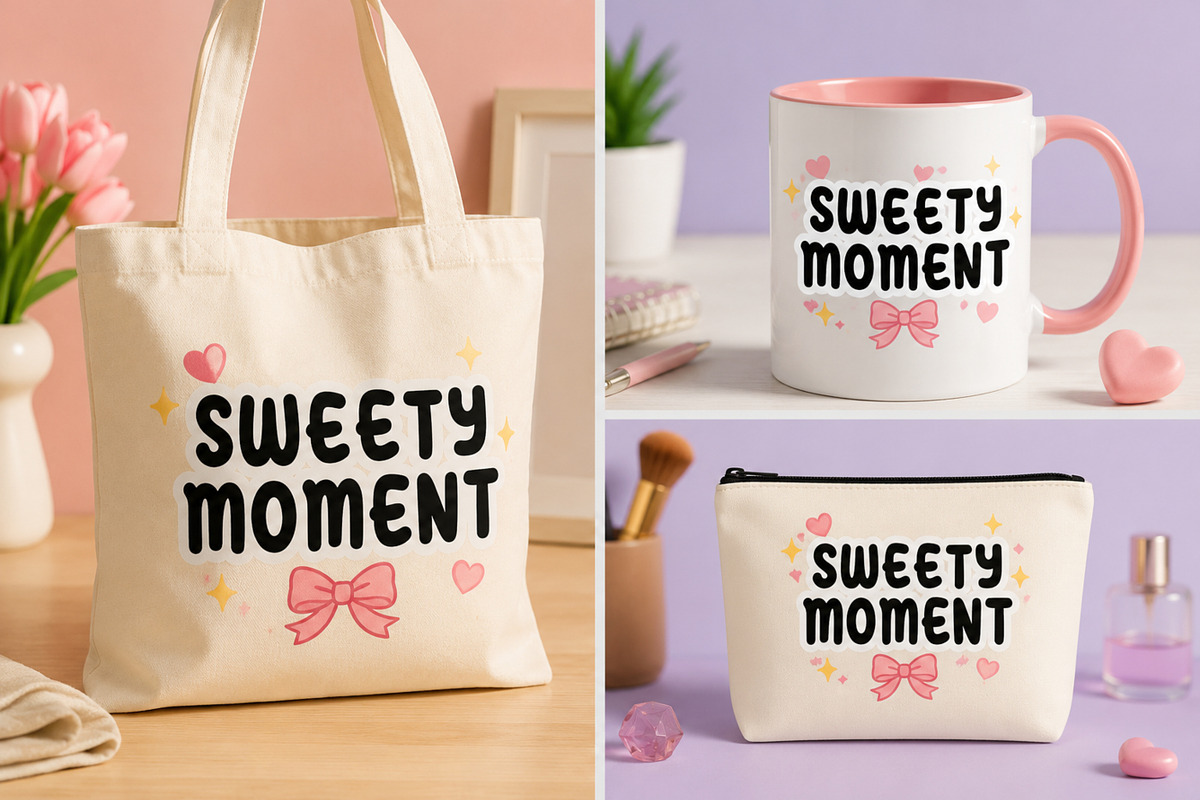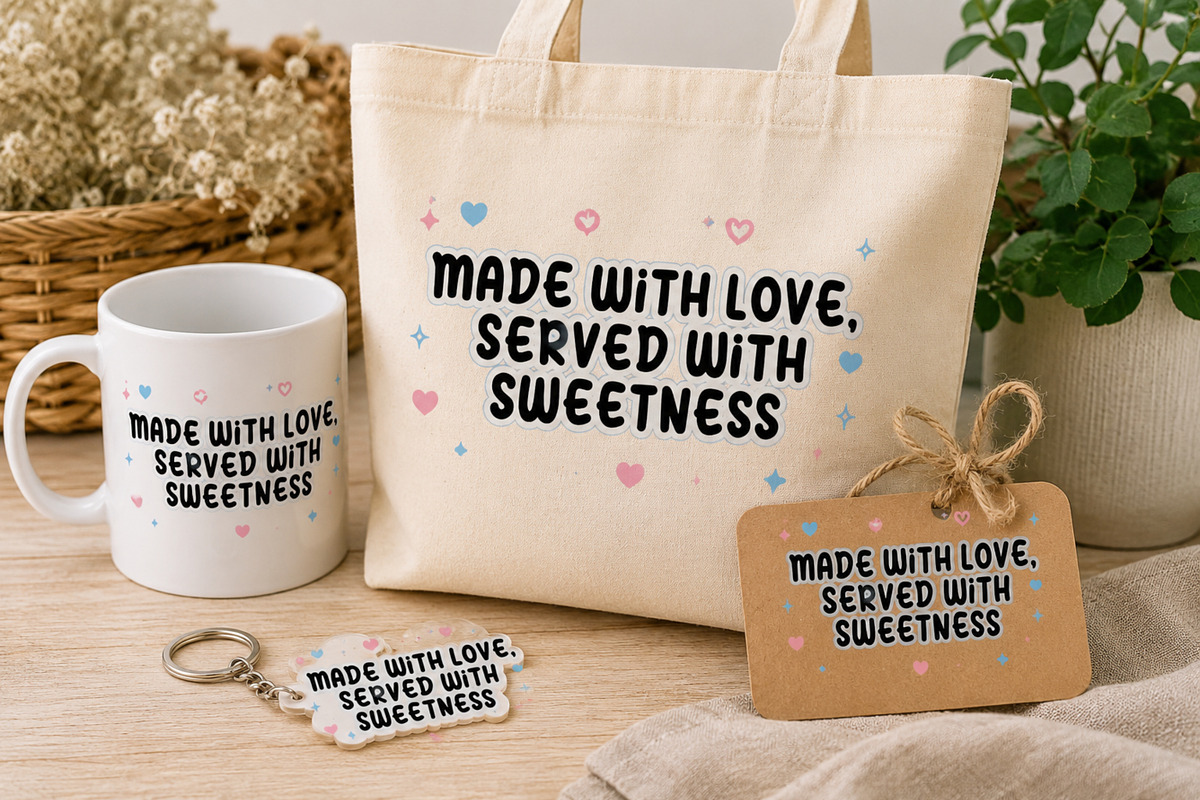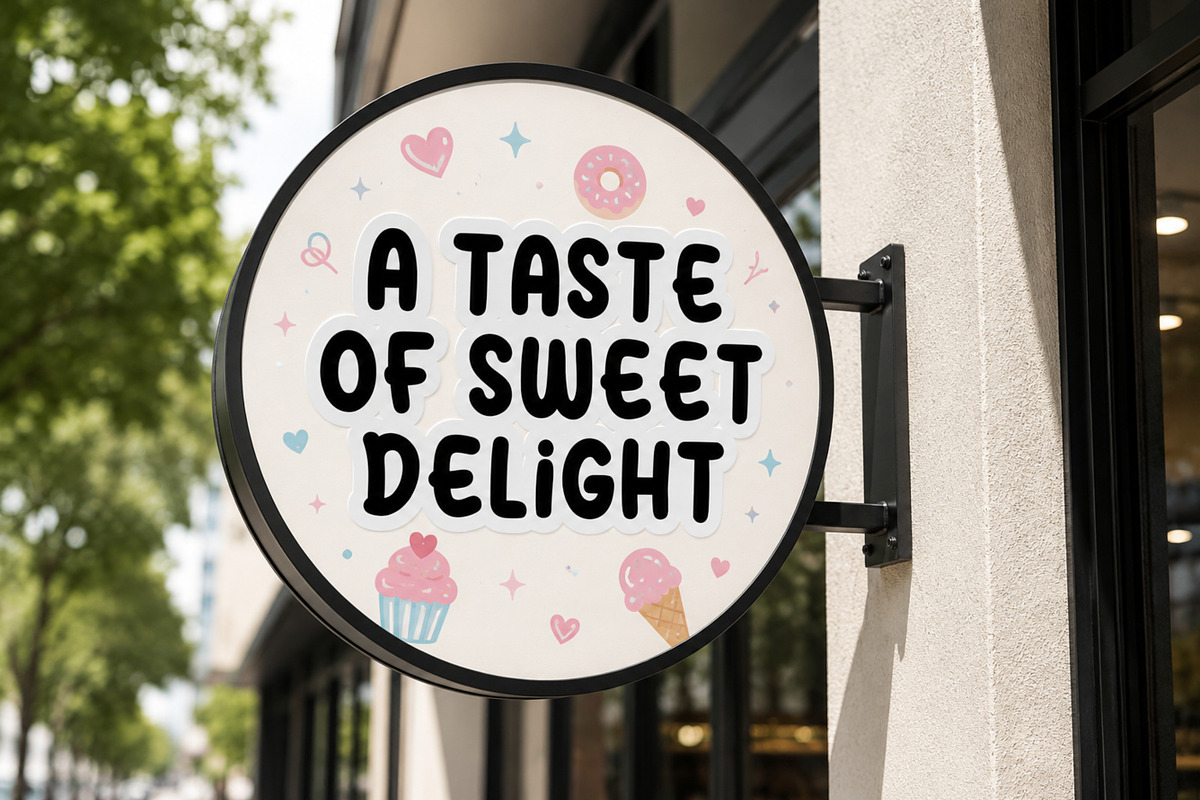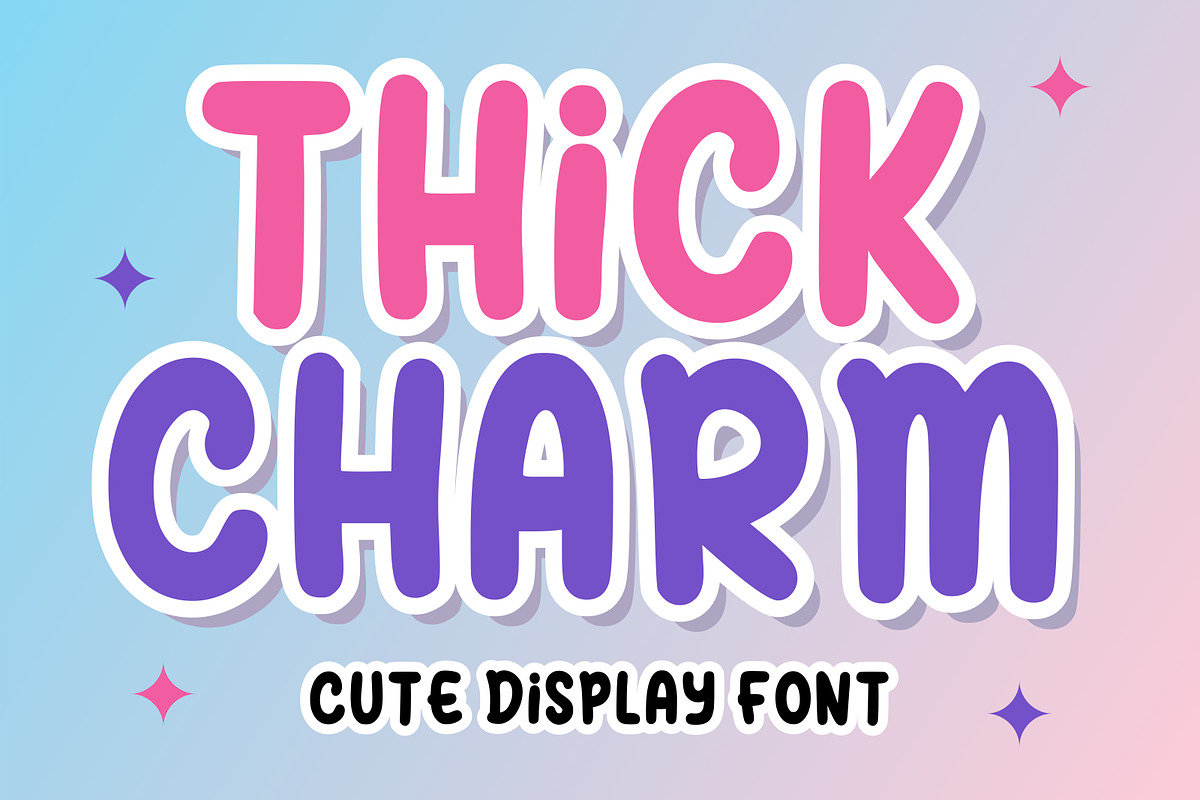
Thick Charm
Meet Thick Charm, a fun and chunky display font designed with soft curves and bold letterforms that instantly create a friendly and joyful impression.
Whether you're designing children's products, playful branding, social media graphics, stickers, or printable crafts, Thick Charm delivers a clean, modern, and adorable look.